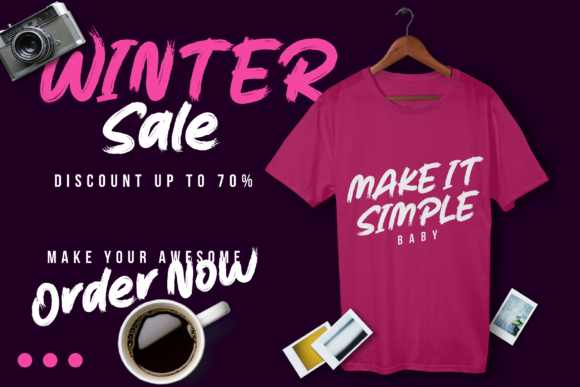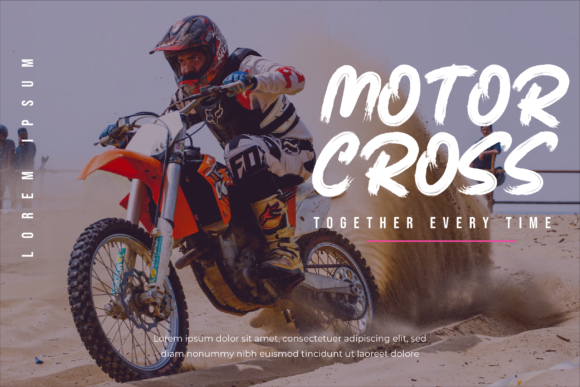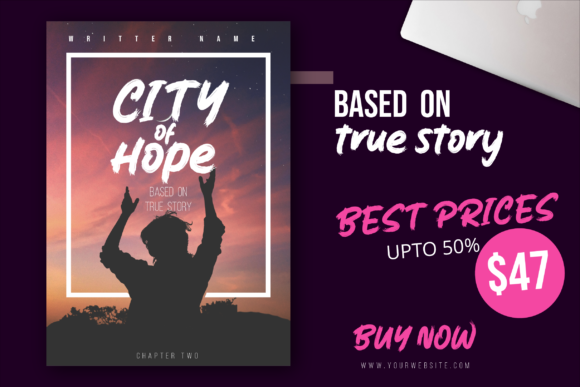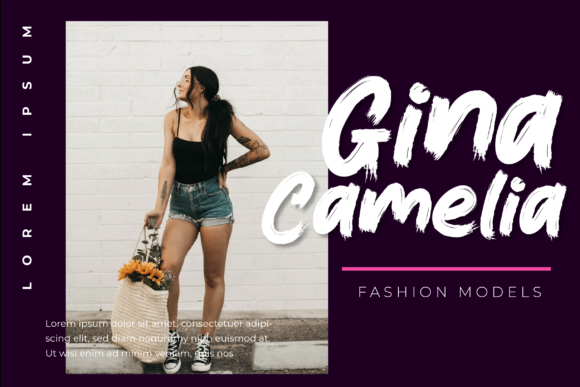
Biker Font: Elevate Your Designs with a Free-Themed, Hand-Drawn Display Font
Are you tired of using the same old fonts in your designs? Look no further! Introducing Biker Font, a free-themed, hand-drawn display font that’s sure to take your creative projects to the next level. With its unique blend of rugged charm and typographic harmony, Biker Font is perfect for designers and crafters looking to add a touch of personality to their work.
What is Biker Font?
Biker Font is a carefully crafted, hand-drawn display font that’s designed to make a statement. With a neat selection of brushes, this font boasts a captivating typographic harmony that’s sure to grab attention. Whether you’re working on a logo, poster, or social media graphic, Biker Font is the perfect choice for adding a touch of edginess and sophistication.
Key Features of Biker Font
- Hand-drawn design: Biker Font is meticulously crafted by hand, giving it a unique and authentic feel that’s hard to replicate with generic fonts.
- Free-themed: This font is perfect for designers and crafters who want to add a touch of freedom and adventure to their work.
- Display font: Biker Font is designed to make a statement, making it perfect for headlines, titles, and other display text.
- Neat selection of brushes: With a range of brush styles to choose from, you can customize Biker Font to suit your design needs.
Why Choose Biker Font?
So why choose Biker Font over other fonts on the market? Here are just a few reasons why designers and crafters love this font:
- Unique typographic harmony: Biker Font boasts a captivating typographic harmony that’s sure to elevate your designs.
- Versatile: Whether you’re working on a logo, poster, or social media graphic, Biker Font is the perfect choice for a wide variety of designs.
- Easy to use: With its clean and simple design, Biker Font is easy to use and customize, even for designers who are new to hand-drawn fonts.
How to Use Biker Font in Your Designs
Ready to add Biker Font to your design toolkit? Here are a few tips for using this font in your creative projects:
- Pair it with bold colors: Biker Font looks amazing when paired with bold, bright colors. Try using it with a bold red or blue to add a pop of color to your design.
- Use it for headlines: Biker Font is perfect for headlines and titles, where its bold and rugged design can really shine.
- Experiment with different brush styles: With a range of brush styles to choose from, don’t be afraid to experiment and find the perfect look for your design.